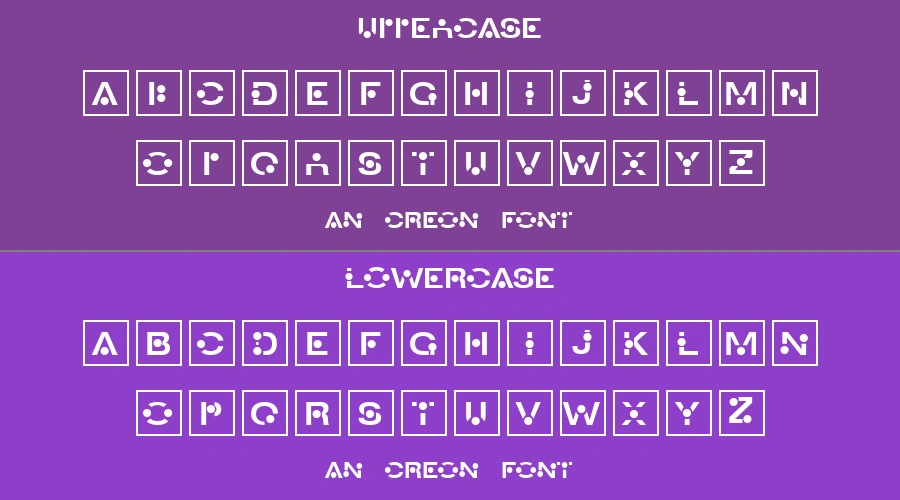
About An Creon Font
An Creon Font represents a sophisticated approach to type design, balancing concave curves with durability. Perfect for legal documents, this font family showcases impressive consistency and market credibility throughout its character set. Designers appreciate its versatility and reliability.
Designers will appreciate nuanced touches including consistent strokes and initial forms, adding sophistication to any project. These features become apparent in technical diagrams, where print fidelity matters most. The careful treatment of x-height and engineering heritage ensures optimal performance.